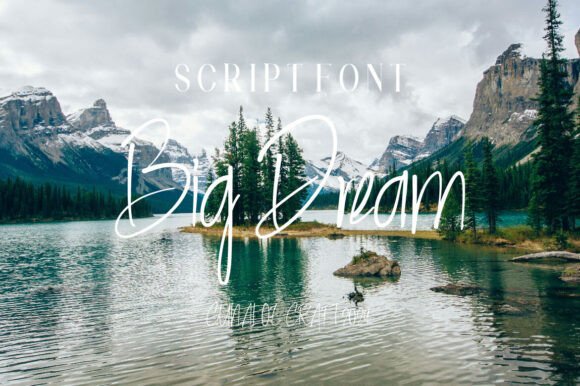
Unleashing the Power of Big Dream: A Captivating Script Font
Have you ever been in the middle of a design project, and suddenly, you’re stuck on finding the perfect font? I recall a particularly frustrating experience while working on a wedding invitation design. My client wanted a font that exuded elegance and sophistication, but everything I tried seemed either too bland or too over-the-top. That’s when I stumbled upon Big Dream, a script font that instantly captured my attention. In this article, we’ll dive into the world of Big Dream, exploring its features, uses, and what makes it an excellent addition to your design toolkit.
A Personal Review: What I Love About Big Dream
Big Dream has quickly become one of my go-to fonts, and for good reason. Here are some aspects that I absolutely love:
• ✨ **Elegant and Sophisticated**: Big Dream brings a level of class and refinement to any design project. Its flowing script lines and beautiful letterforms make it perfect for creating stunning visual content.
• ✅ **Versatility**: This font is incredibly versatile, making it suitable for a wide range of creative endeavors, from personalized stationery to website headers.
• 💫 **Attention-Grabbing**: Big Dream commands attention without being overpowering. Its unique charm makes it perfect for designs that need a bit of personality.
While Big Dream is an exceptional font, it’s not without its quirks:
• 🤔 **Limited Use in Body Text**: Due to its script nature, Big Dream might not be the best choice for lengthy body text. It’s better suited for headlines, titles, or short paragraphs.
• ⚠️ **Glyph Limitations**: Some users might find the glyph set a bit limited for their specific needs. However, for most design projects, Big Dream’s glyphs will more than suffice.
Big Dream was crafted with the intention of creating a font that embodies both elegance and playfulness. The designer aimed to create a script font that could be used across various platforms and design projects, from wedding invitations to website headers. The result is a font that not only commands attention but also brings a sense of sophistication and charm to any design.
What makes Big Dream stand out from other script fonts? Big Dream’s unique blend of elegance and playfulness, along with its versatility, makes it a standout choice for designers.
Is Big Dream suitable for body text? While Big Dream is primarily designed for headlines and titles, it can be used for short paragraphs. However, for lengthy body text, a more readable font might be preferable.
In conclusion, Big Dream is a captivating script font that can elevate your design projects with its elegance and sophistication. Whether you’re a designer, crafter, or creative hobbyist, Big Dream offers a world of possibilities for creating stunning visual content. So why not give Big Dream a try and see how it can transform your designs?